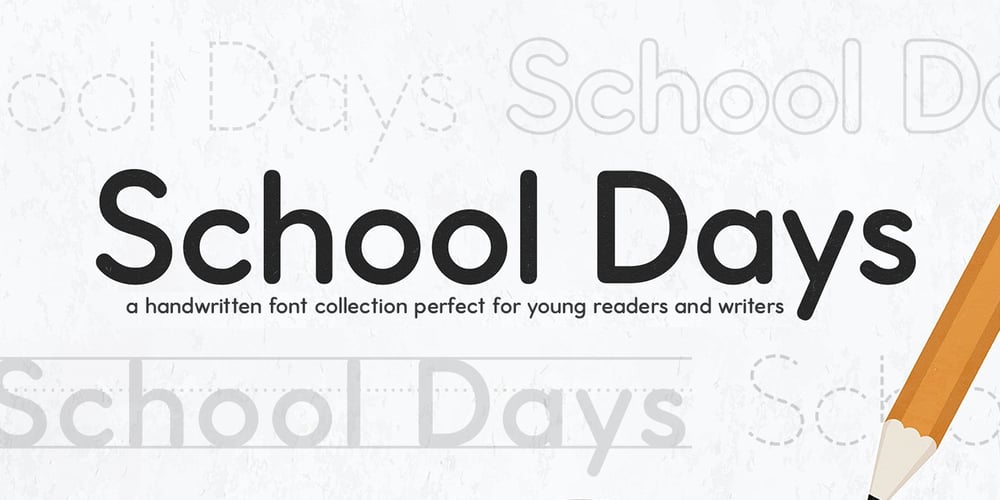
School Days Font Family was designed by Kaitlynn Albani and published by KA Designs. School Days contains 6 styles and family package options. School Days is a handwritten font collection created for teachers by a teacher (me!)These fonts were made to be easy to read for young readers and writers. There are various styles available – Thin, Regular, Bold, Outline, Dash, LinesThe School Days Collection is perfect for creating worksheets, practice pages, school designs, cricut projects, handwriting practice, reading practice, letter formation, personalized items for students and more!School Days includes a ton of variations that will make your designs and worksheets seamless and cohesive!